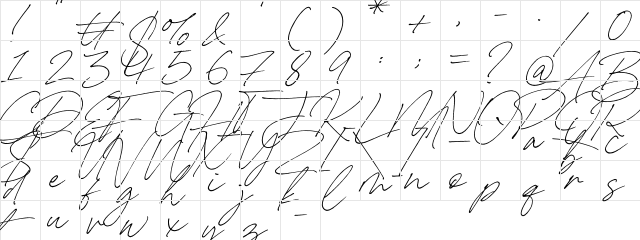
Carneys Gallery Script Demo Ver Regular
Design Context for Carneys Gallery Script Demo Ver Typeface
Carneys Gallery Script Demo Ver brings a calligraphic fluidity to the page — its connecting strokes and expressive curves give it an unmistakably human quality.
Font Pairing: Combine Carneys Gallery Script Demo Ver with a simple geometric sans for maximum contrast — the tension between flowing curves and clean structure is a classic typographic pairing.
Pro Tip: Pair Carneys Gallery Script Demo Ver with a clean sans-serif for supporting text. The contrast between fluid script and geometric structure creates an elegant typographic hierarchy.